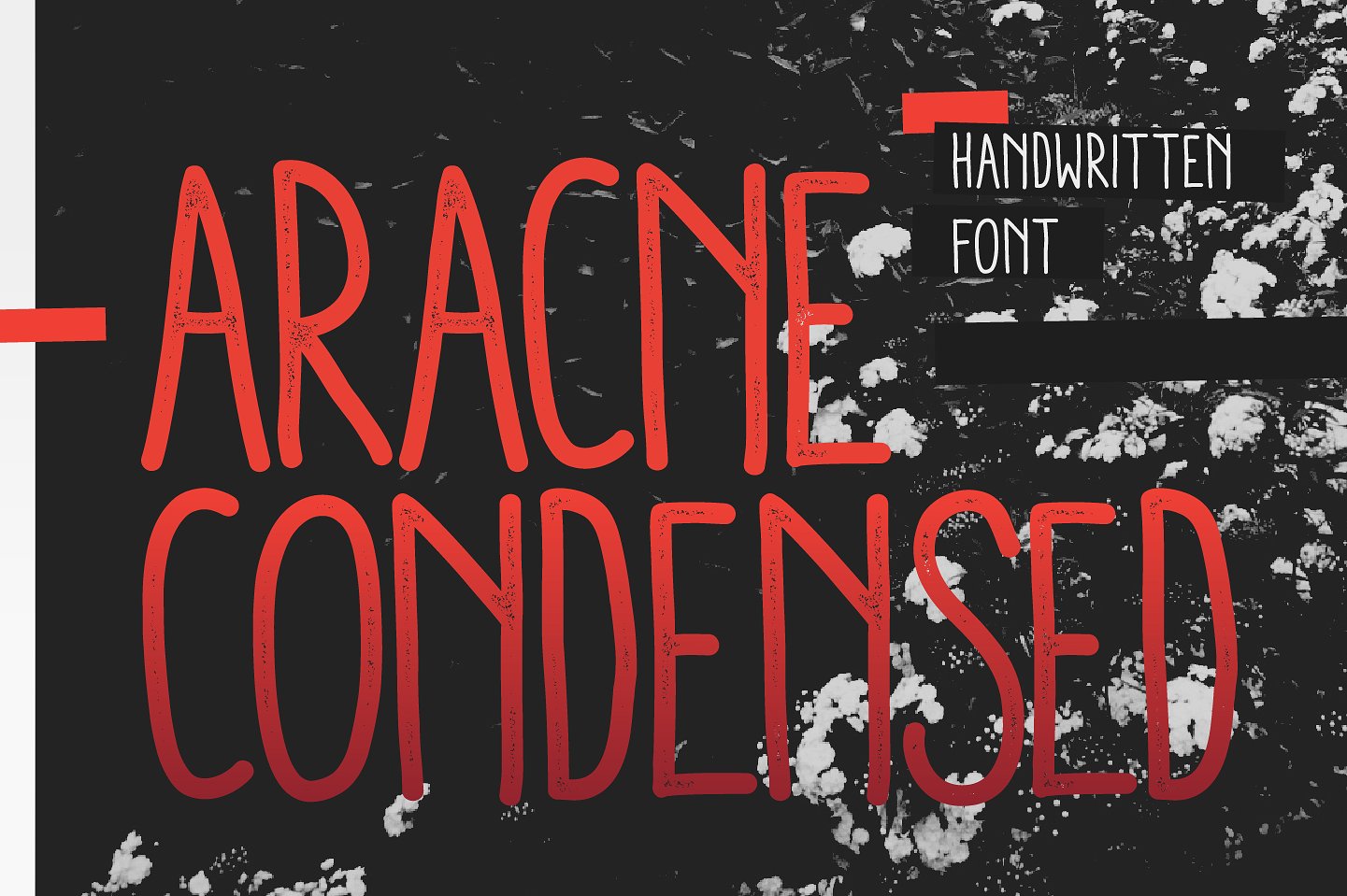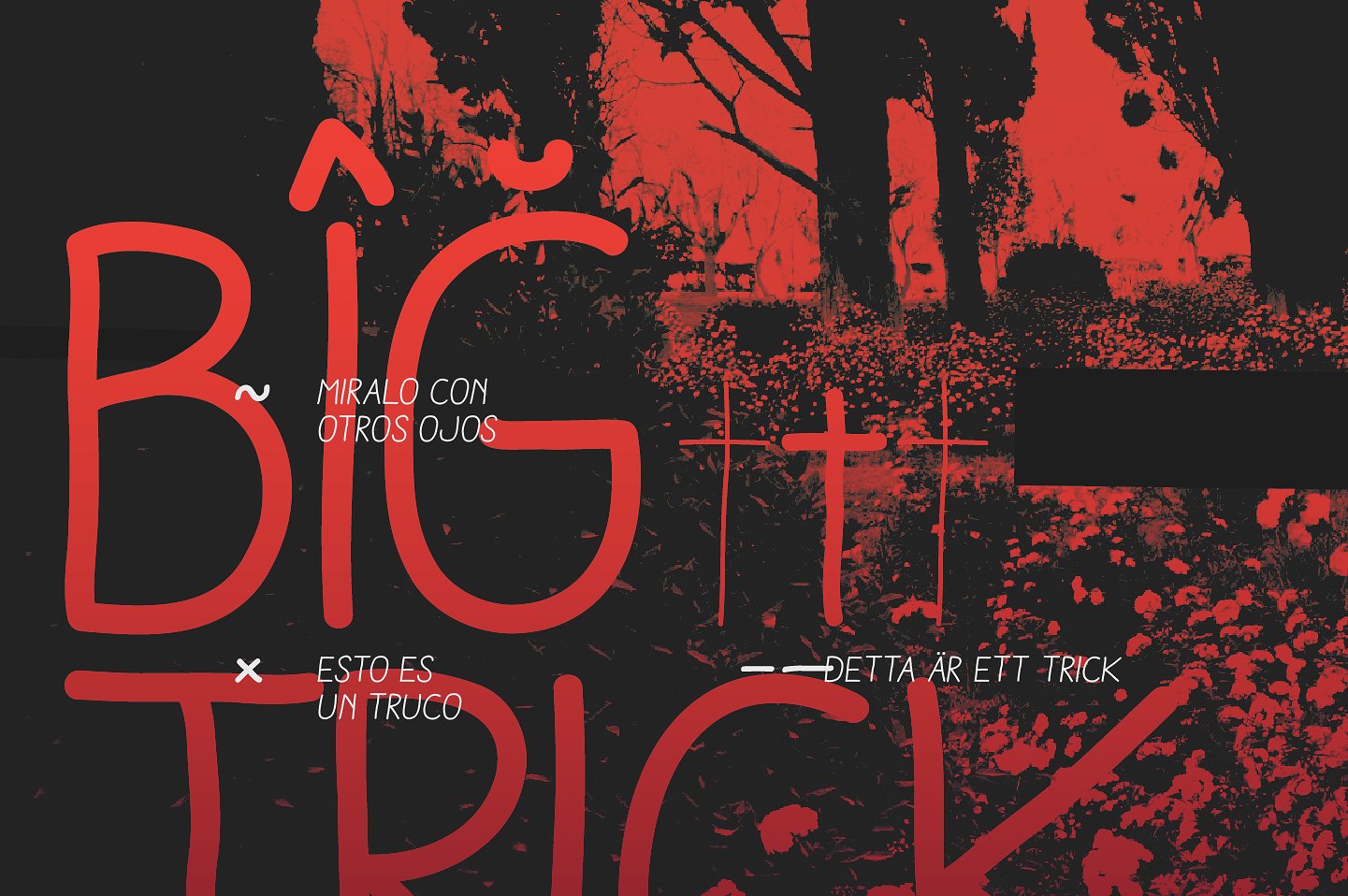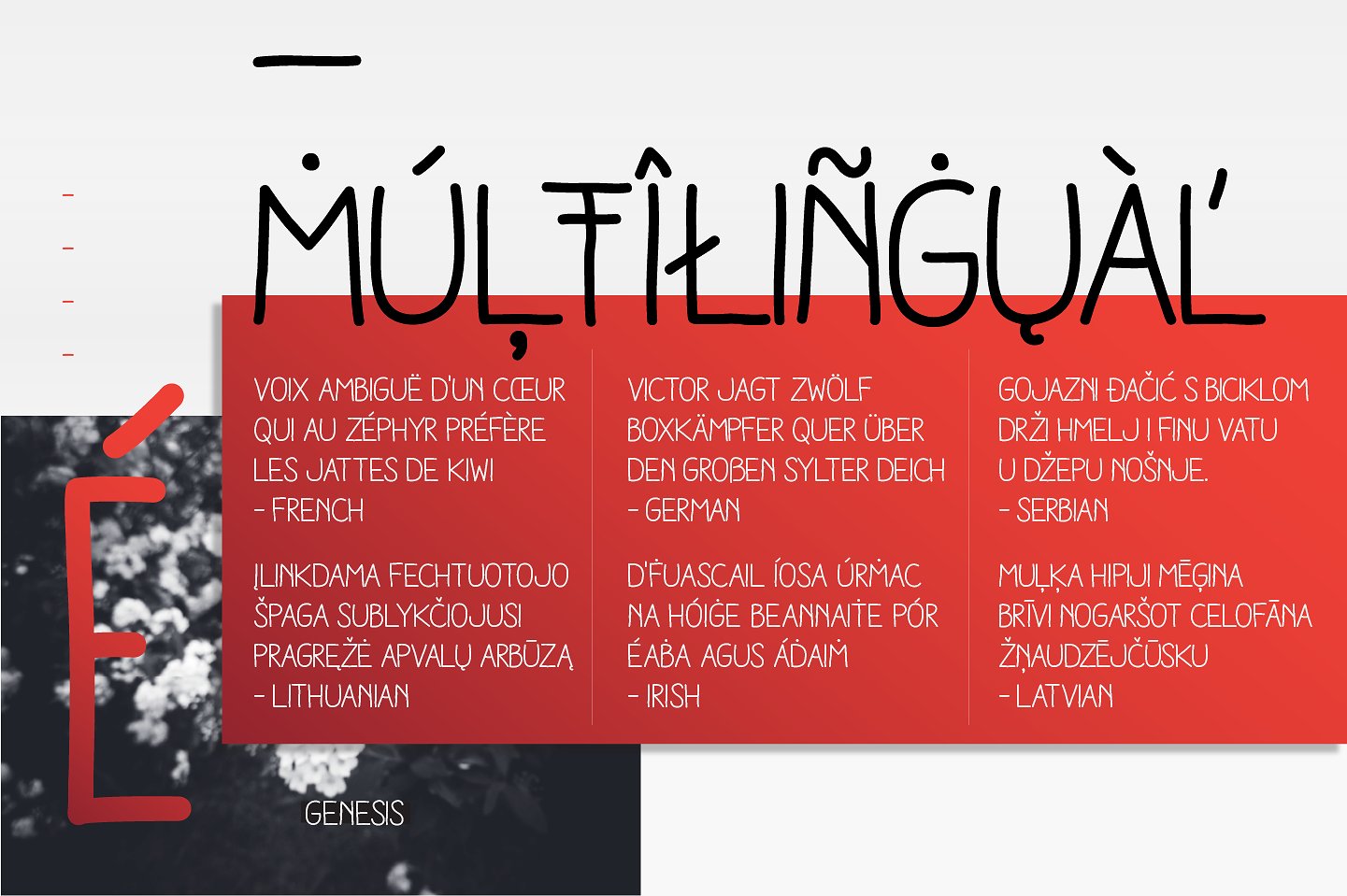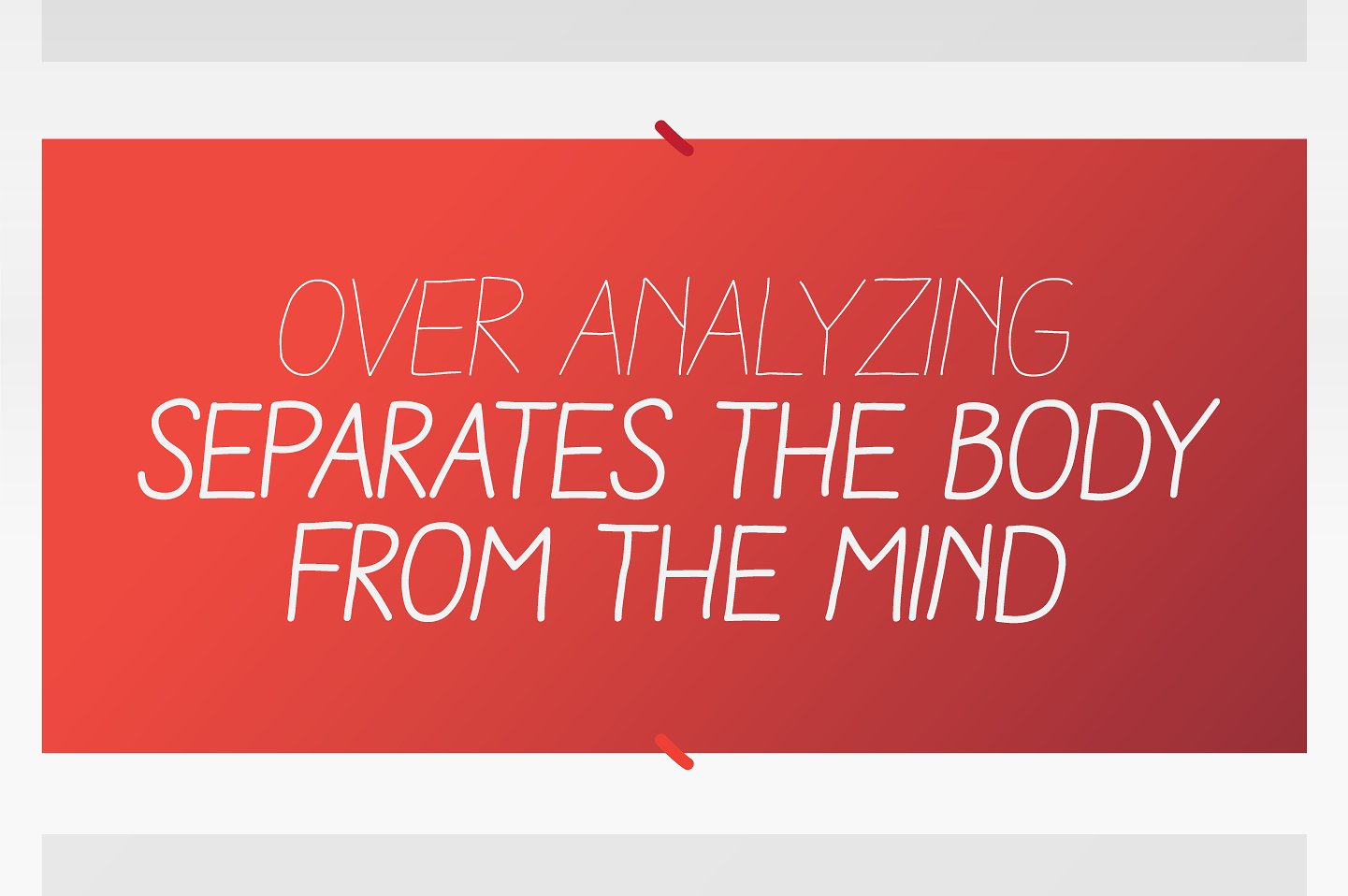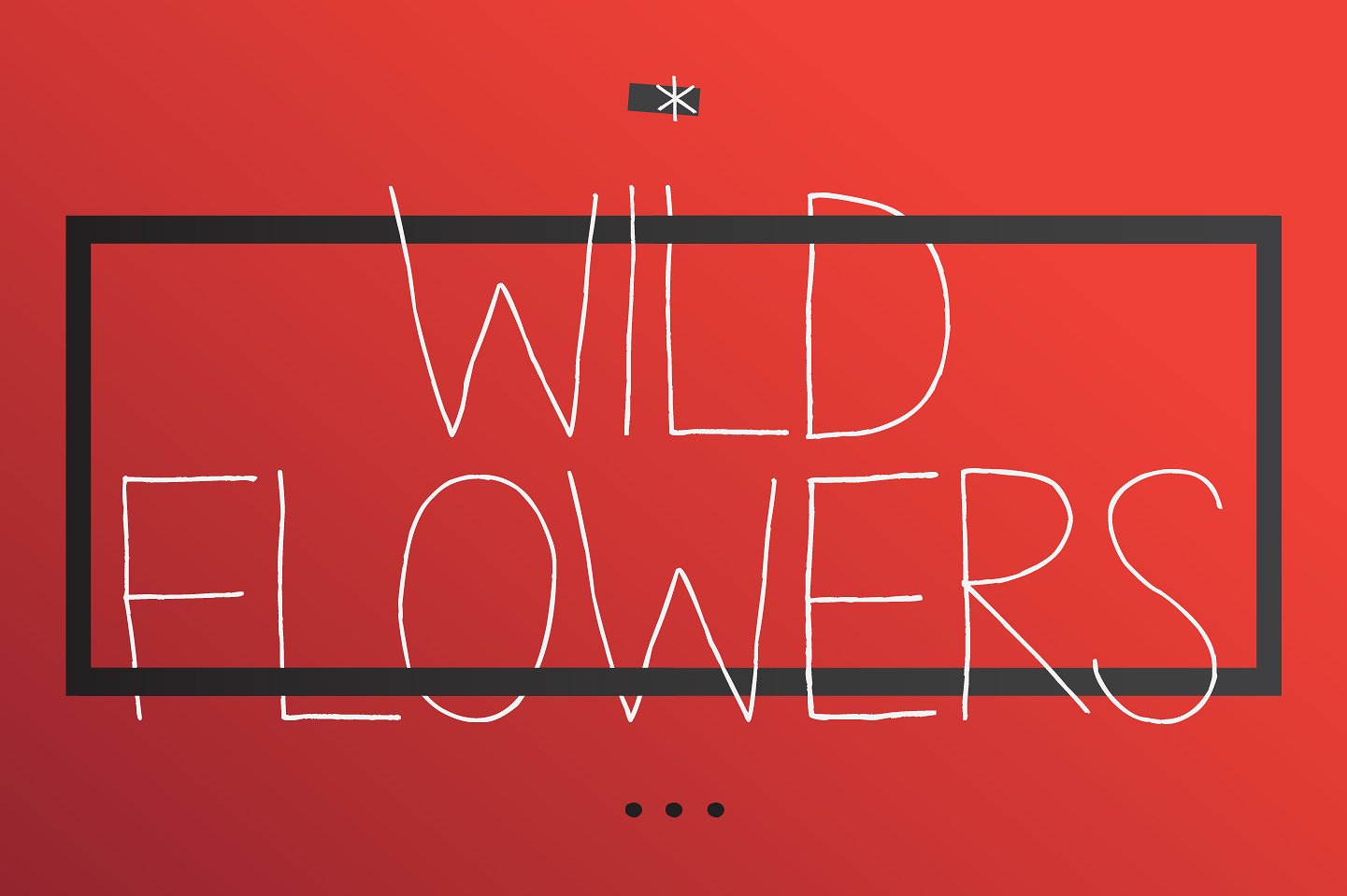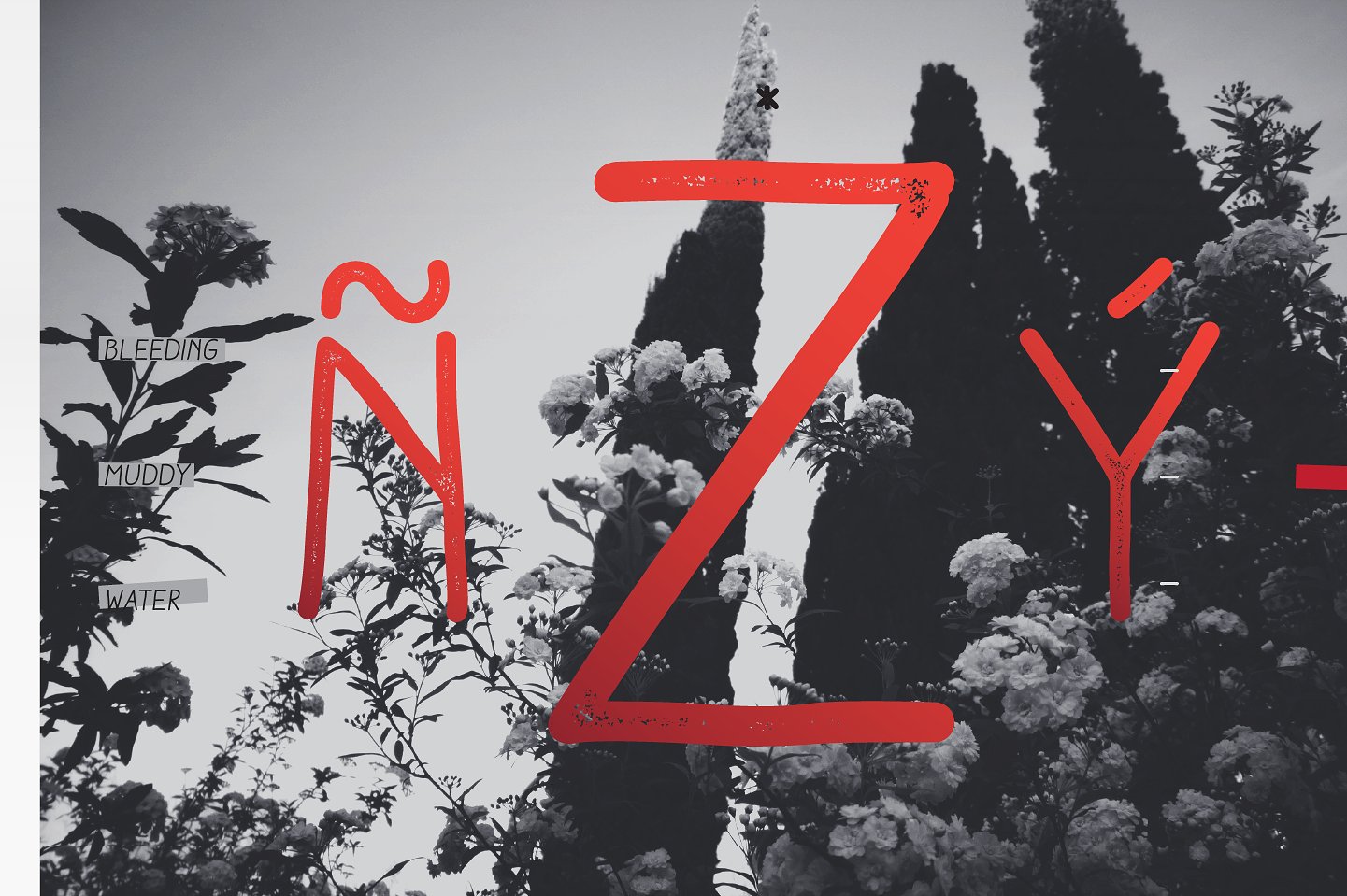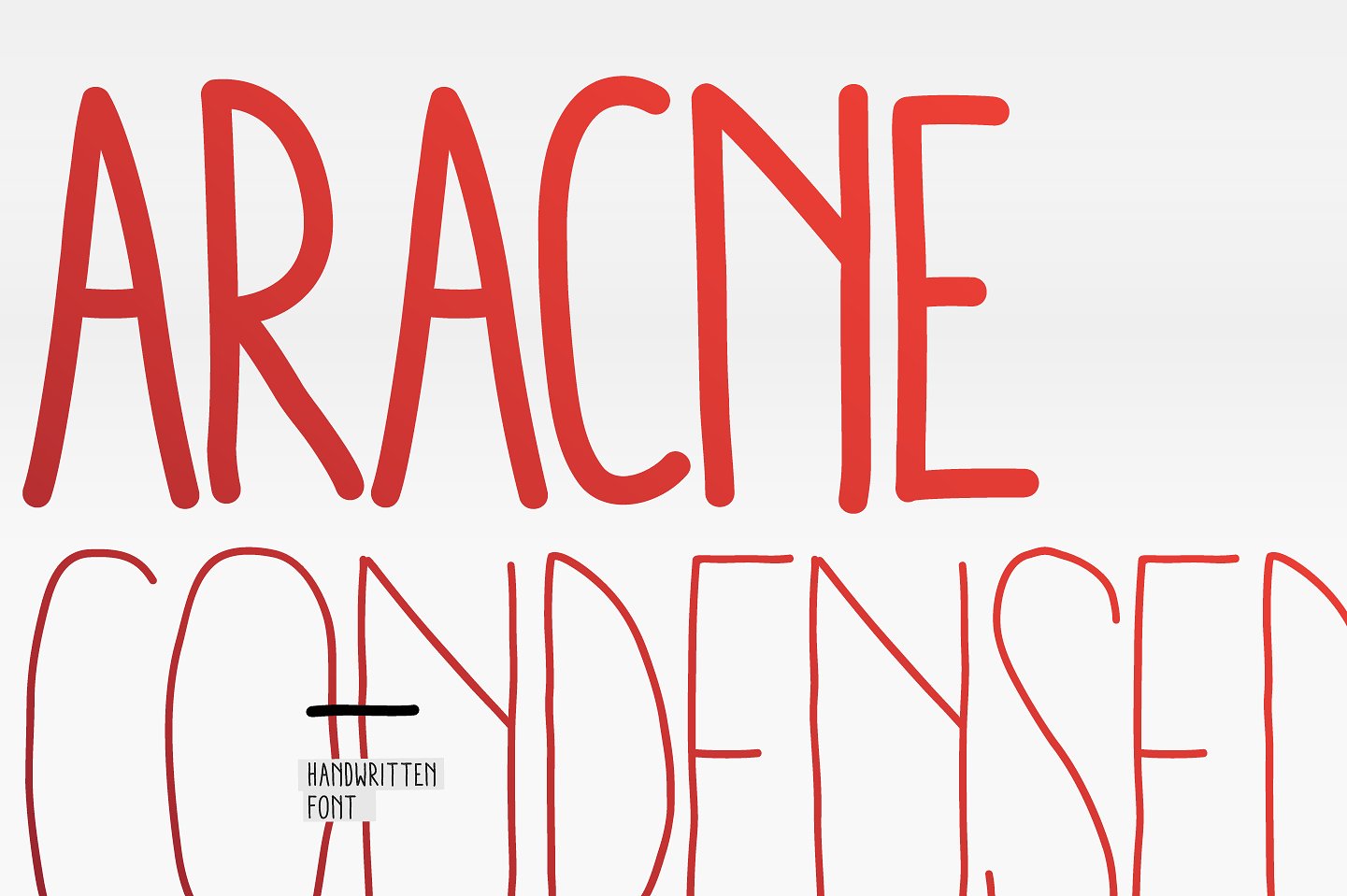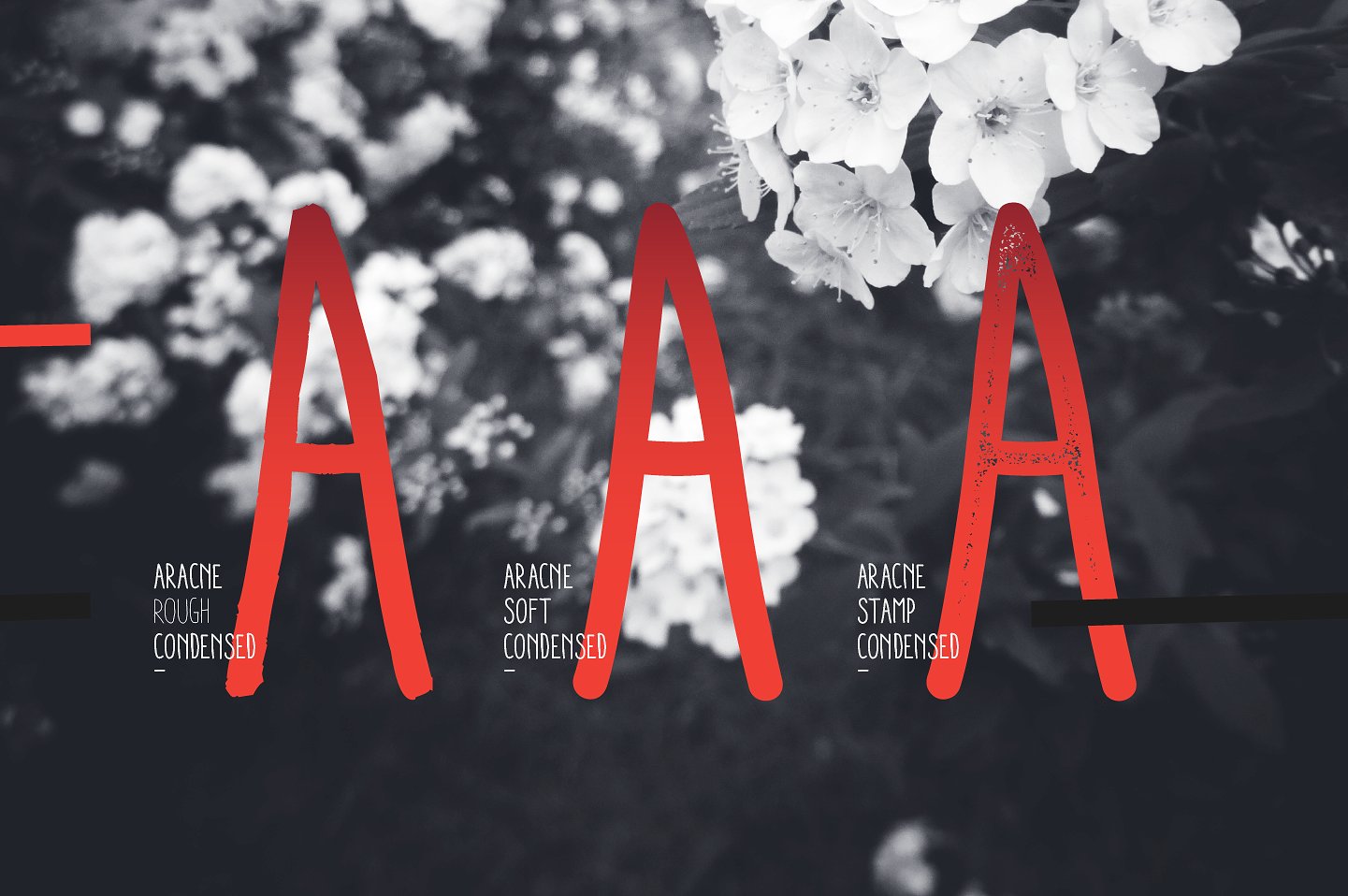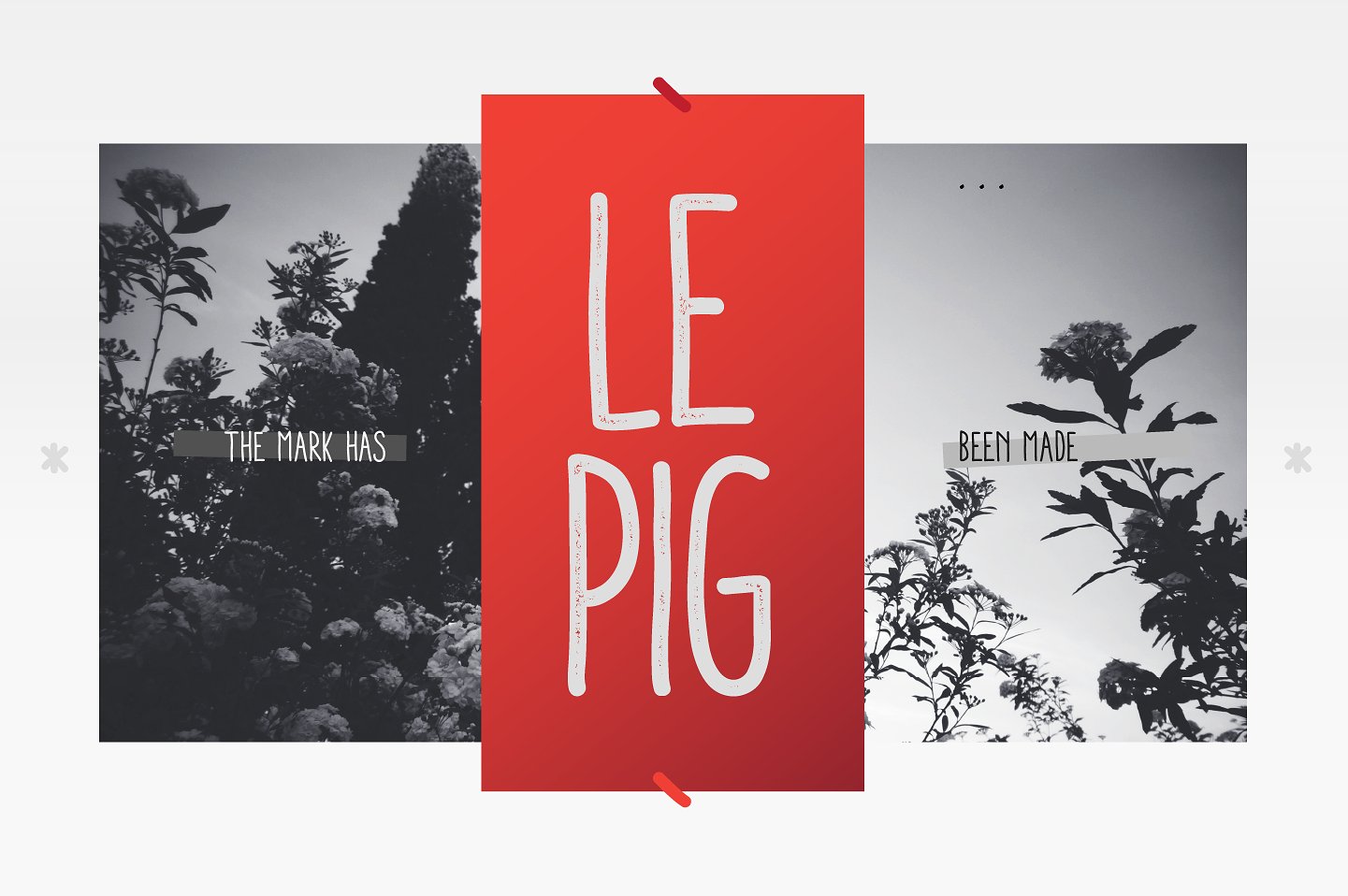
Aracne Condensed Font
About Aracne Condensed Font
This is the sister font of Aracne, offering the same uniqueness and style but in a more condensed style! This gorgeous font has a casual quality and adds a ton of personality to creative projects.